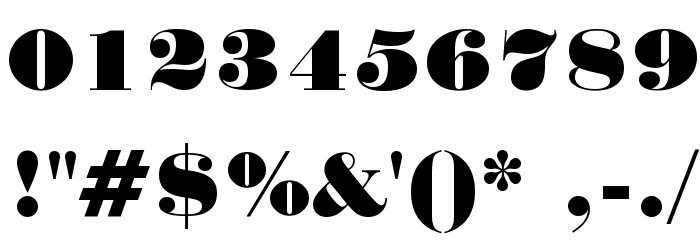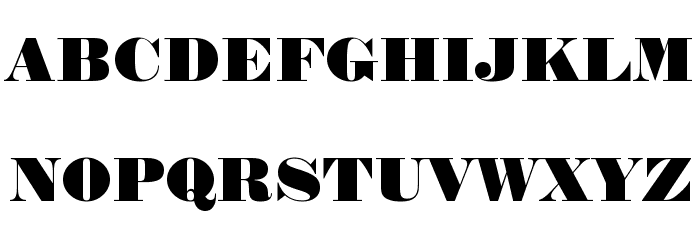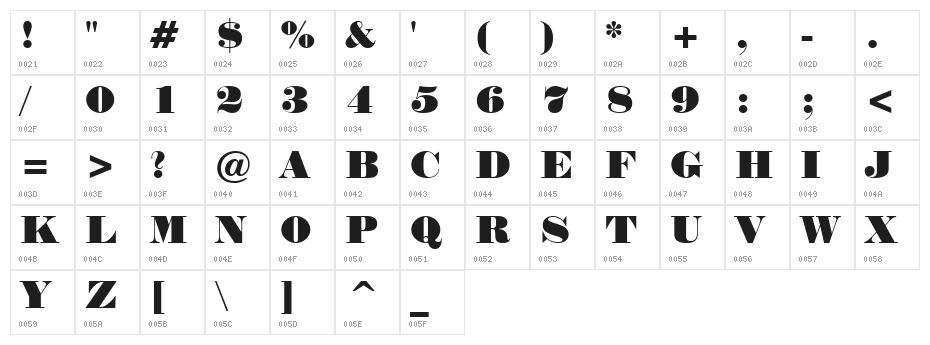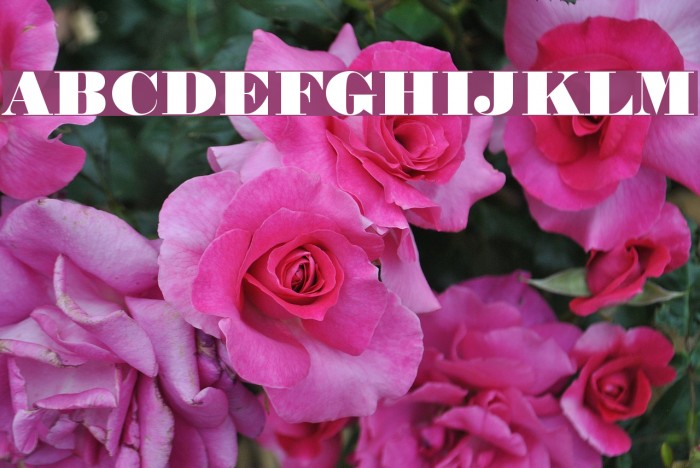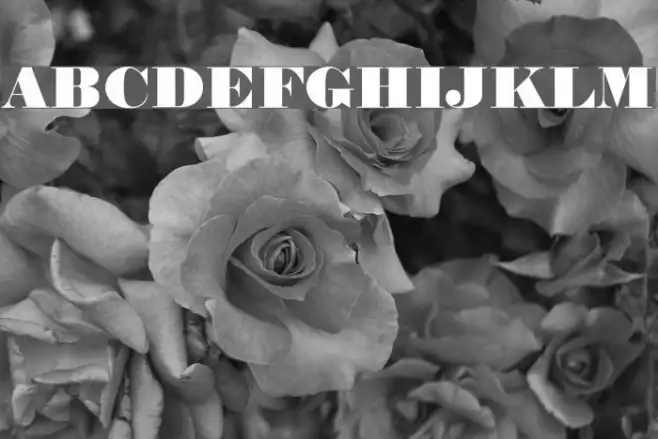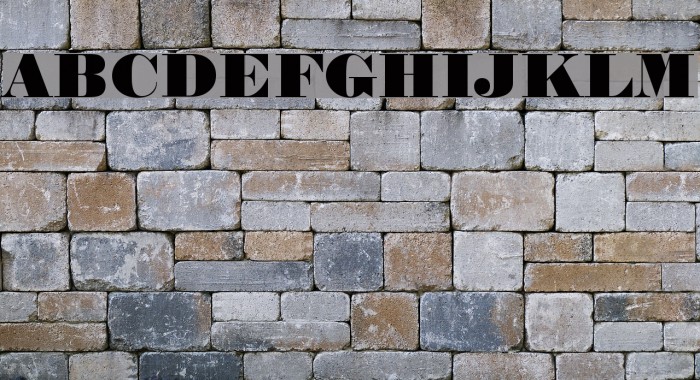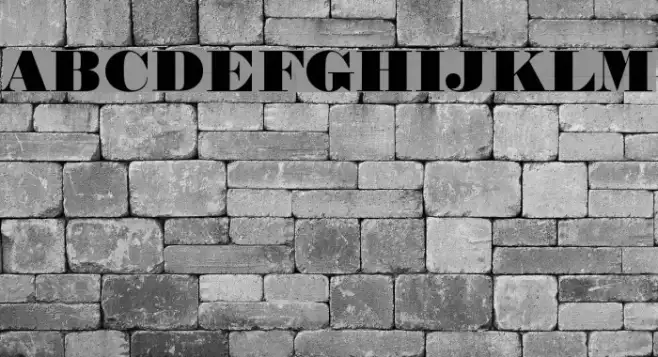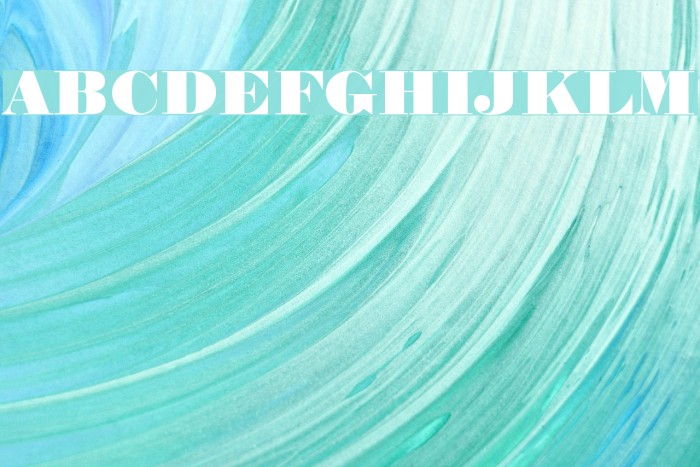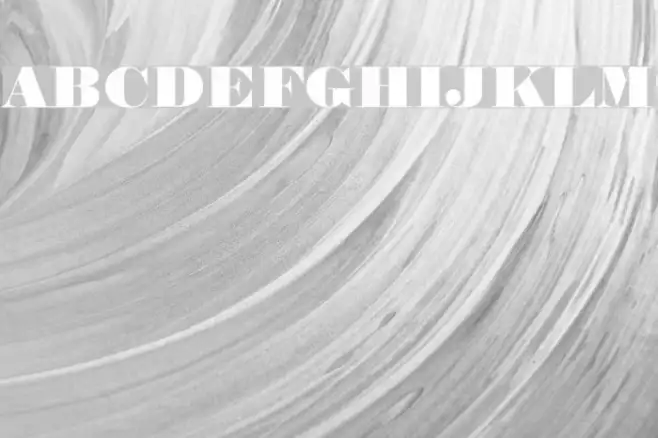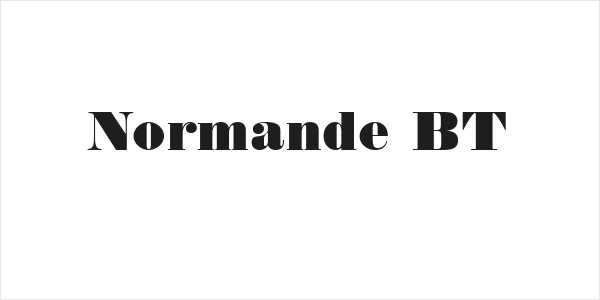
Normande BT Font
Normande BT Description
This font features a bold and dramatic style with thick, heavy strokes and high contrast between thick and thin lines. The serifs are pronounced and add a touch of elegance and sophistication. The uppercase letters are particularly striking, with a strong presence that commands attention. The lowercase letters maintain the boldness while offering a slightly softer appearance. The numerals are consistent with the overall bold style, ensuring readability and impact. Special characters are designed with the same boldness, making them stand out effectively.